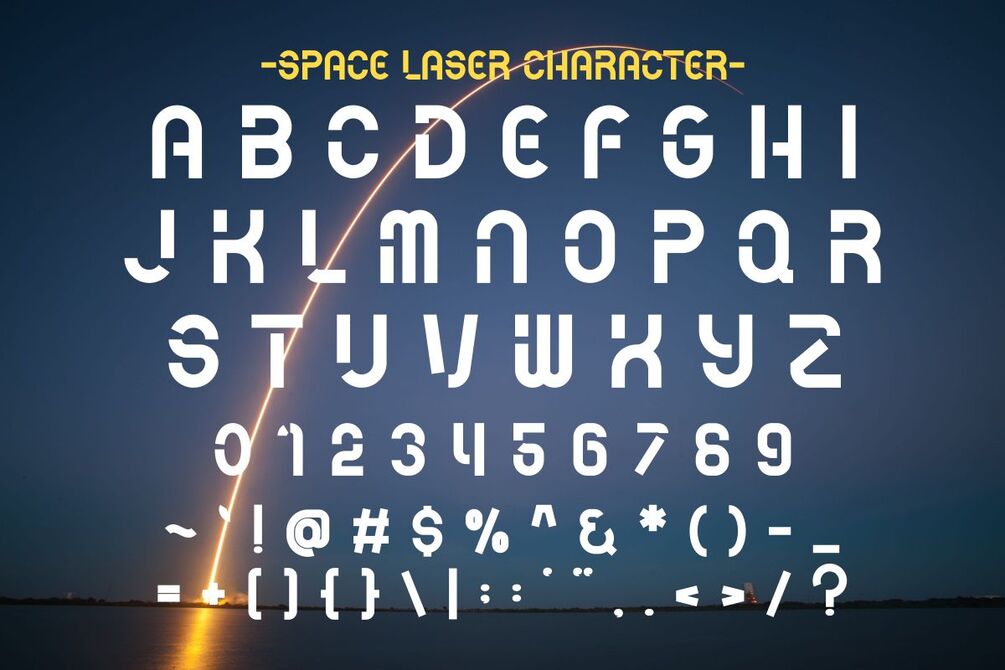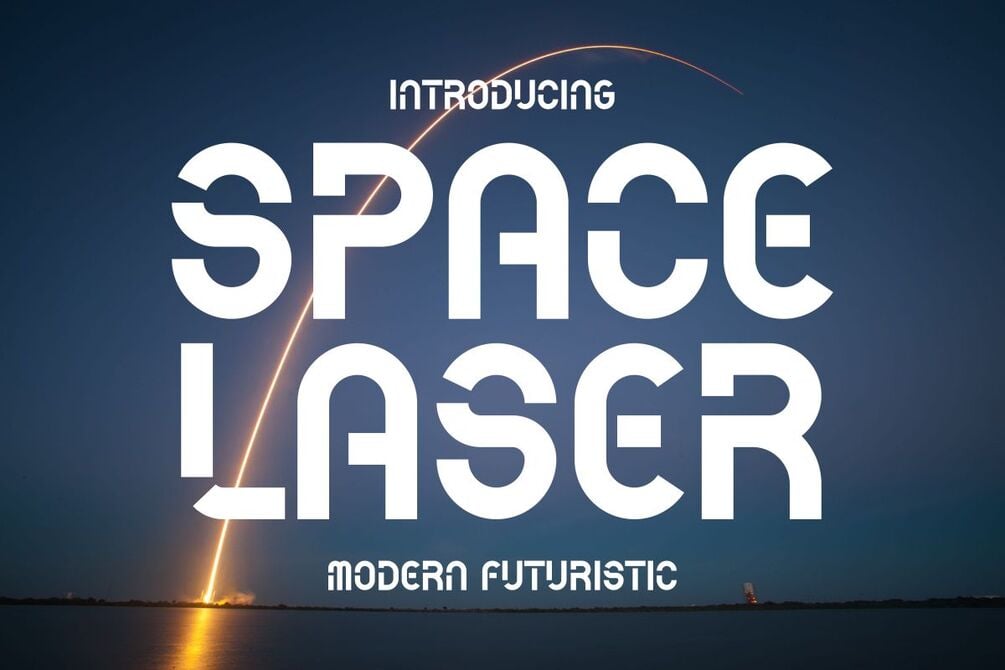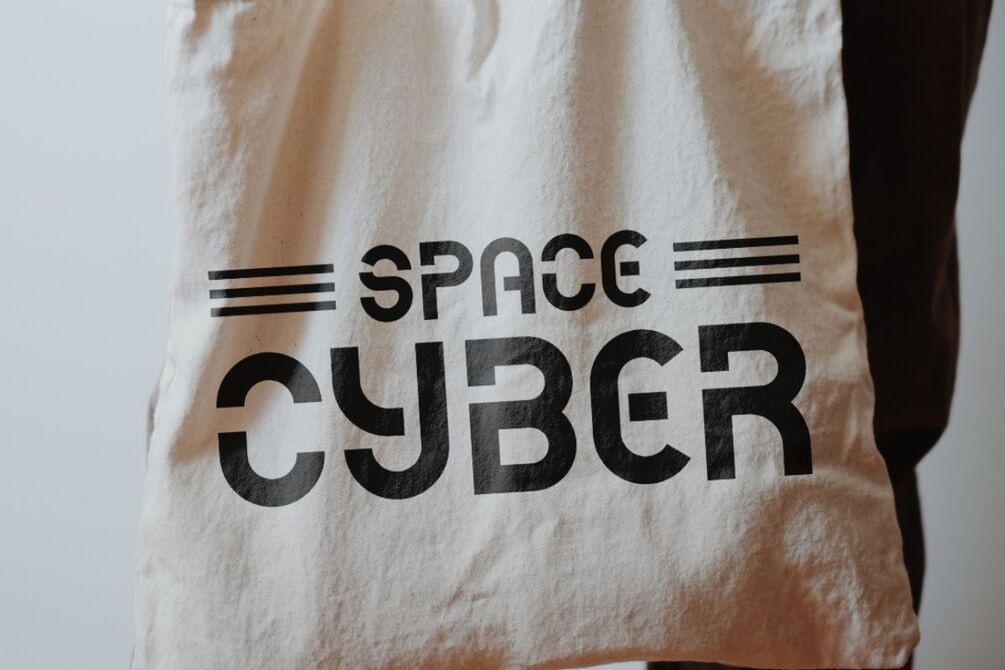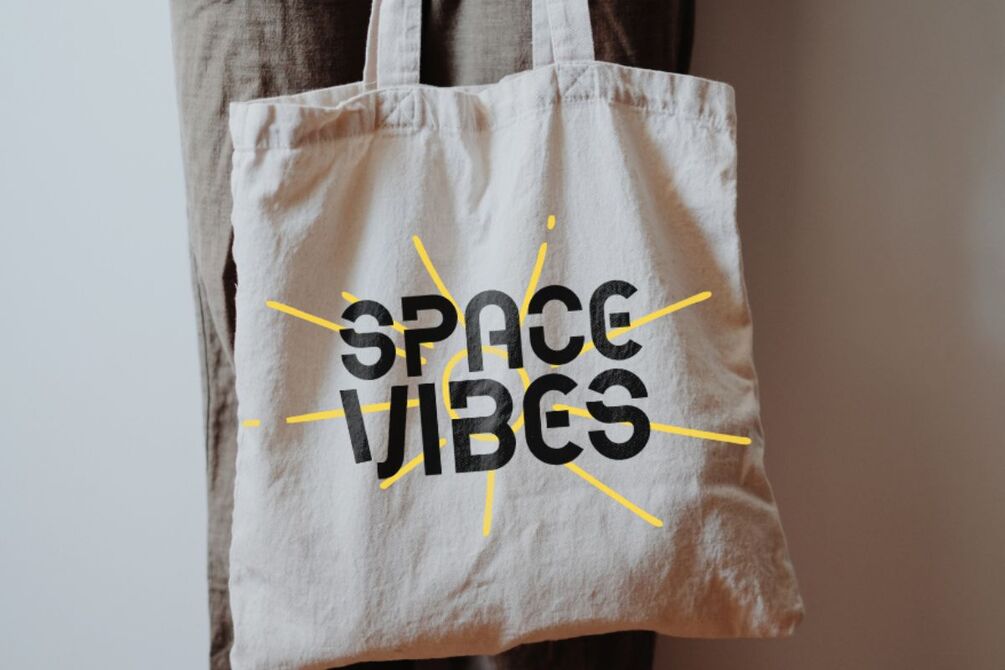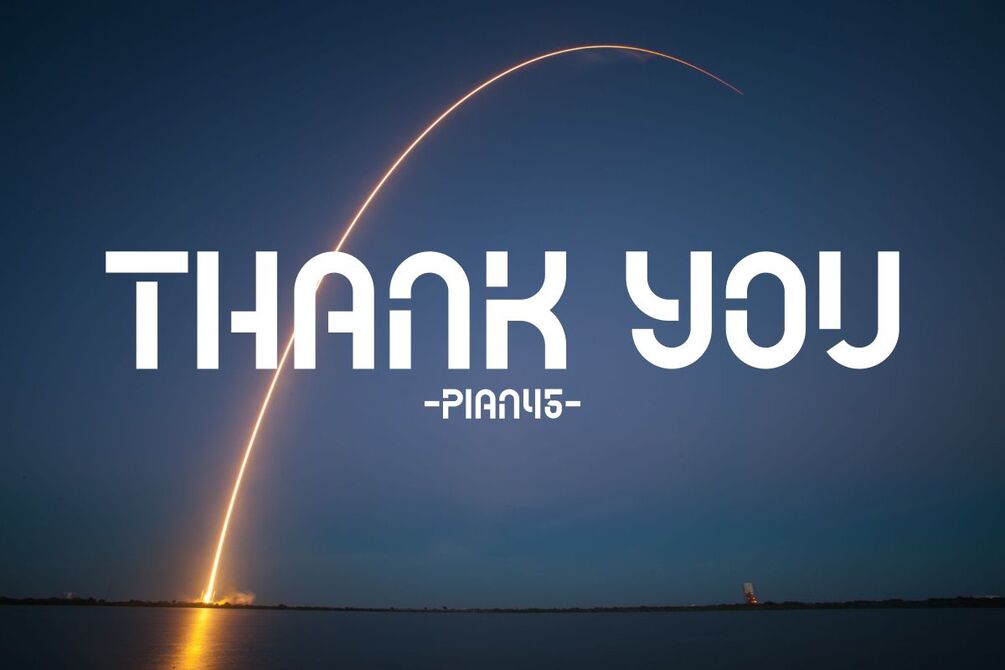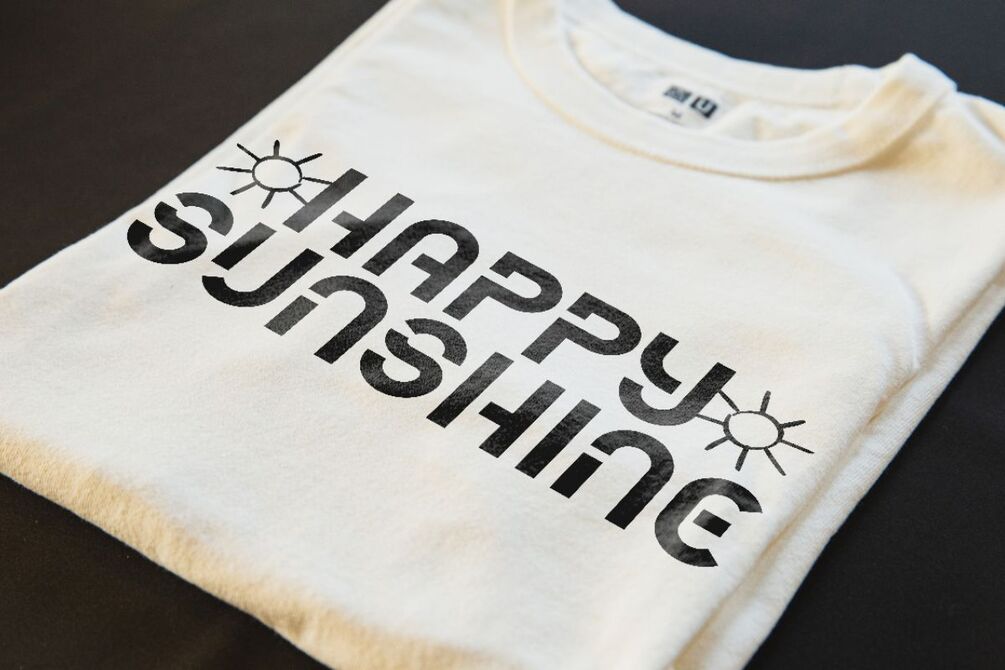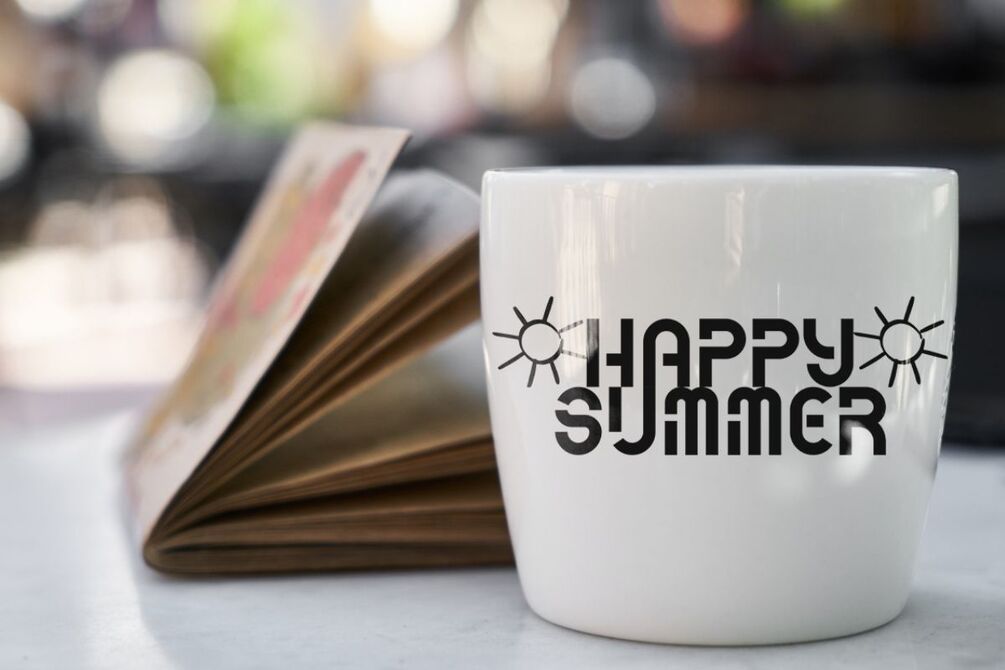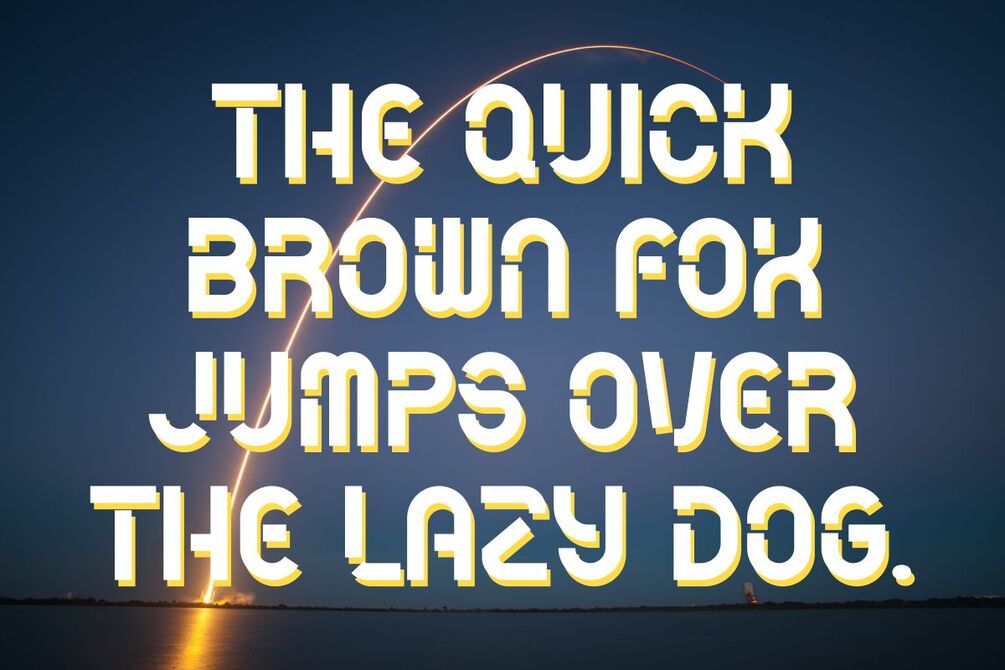
Space Laser - Modern Futuristic
Space laser is a modern futuristic and streamlined font that inspired by the modernity of outer space. With its cutting-edge design and futuristic aesthetics, this font propels your designs into the cosmos with effortless style. Space Laser embodies the essence of space-age innovation.